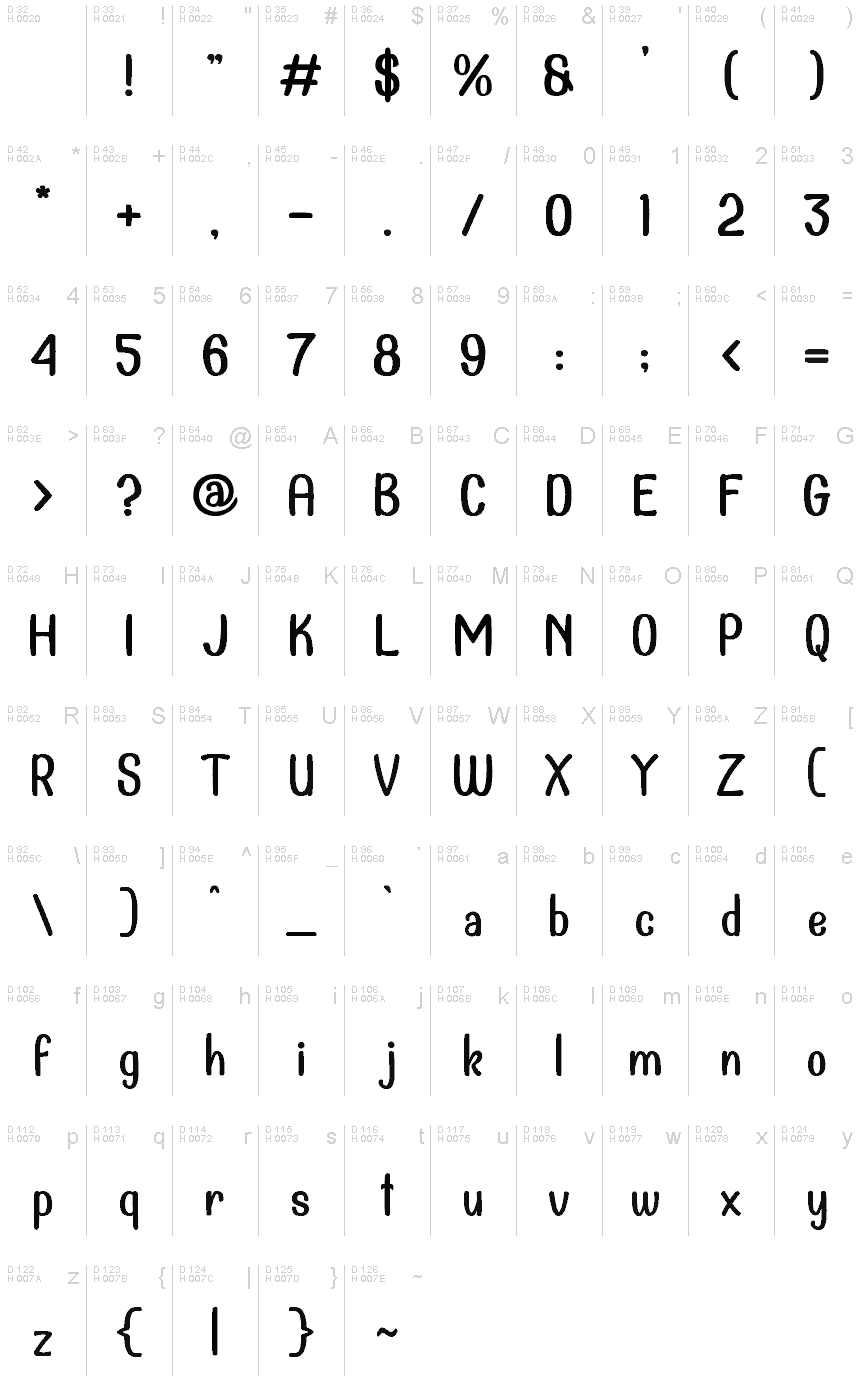
Dollanan is a comically hilarious and whimsical display font with an undeniably youthful charm. Get inspired, and used it for any design project that needs a fun twist.
Dollanan
Designed in Kendal, Central Java, ID